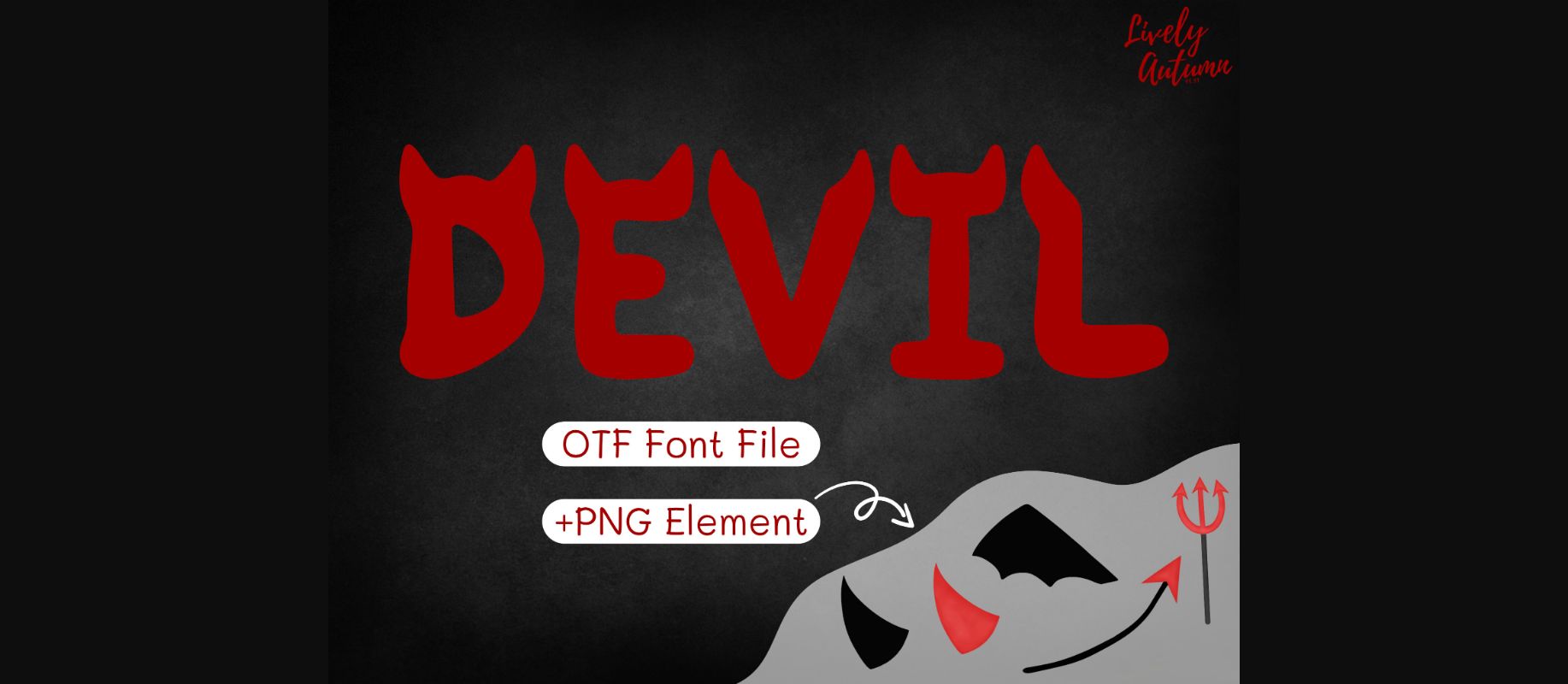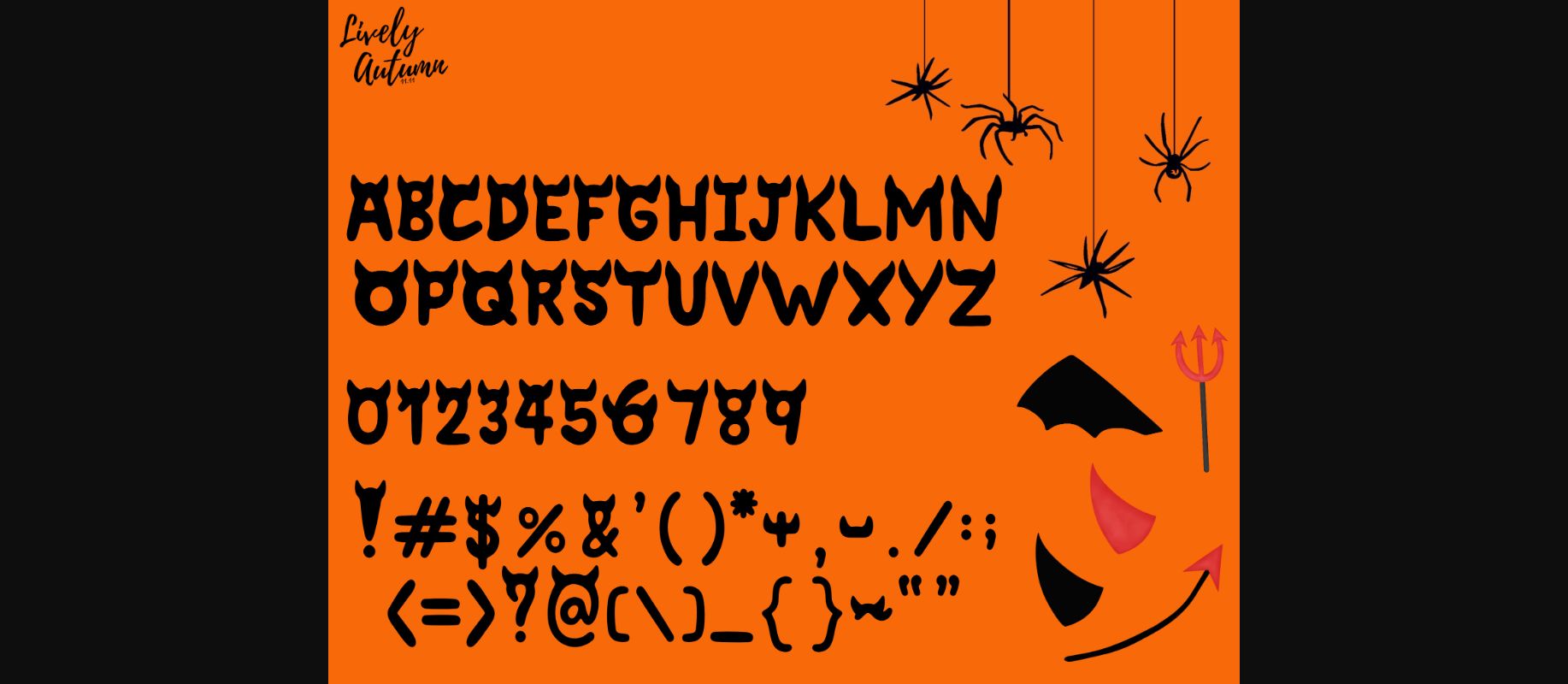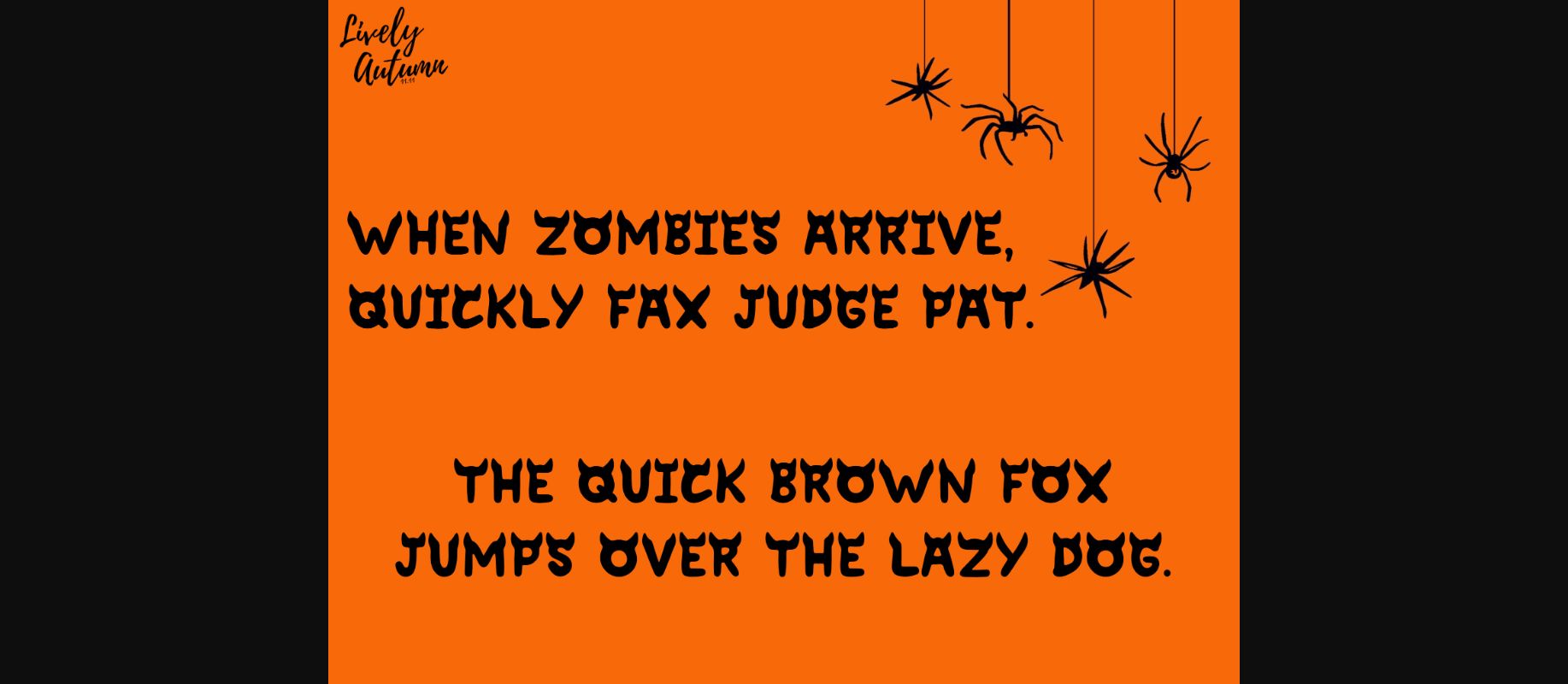
The Devil Font is a fancy decorative font with devilish horns adorning each letter. This font is perfect for adding a touch of mystique to your projects.